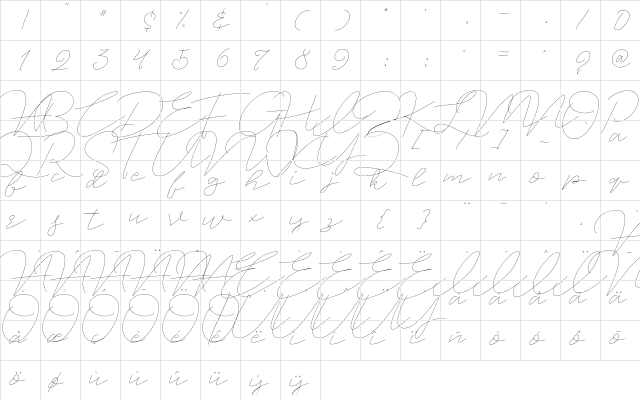
Jet Seat Script Regular
| Foundry | Apon & Stipline Co |
| Designer | Teuku Bahraini |
Design Context for Jet Seat Script Typeface
Jet Seat Script brings a calligraphic fluidity to the page — its connecting strokes and expressive curves give it an unmistakably human quality.
Font Pairing: Combine Jet Seat Script with a simple geometric sans for maximum contrast — the tension between flowing curves and clean structure is a classic typographic pairing.
Pro Tip: Use Jet Seat Script for short runs of text — names, titles, or taglines. Extended body copy in script faces tires the eye quickly.